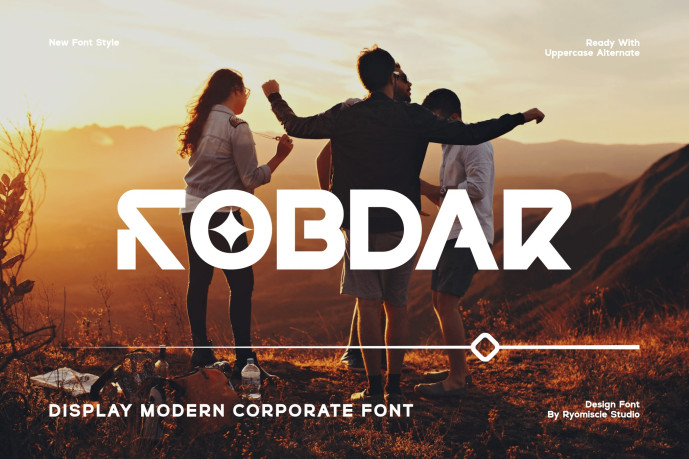
Kobdar Font
Designer: ryomiscie
Kobdar Font – Display Modern Corporate Font is a bold and authentic display font. The font is suitable for any branding project like logo, esport, and many more. outstanding in a wide range of contexts.